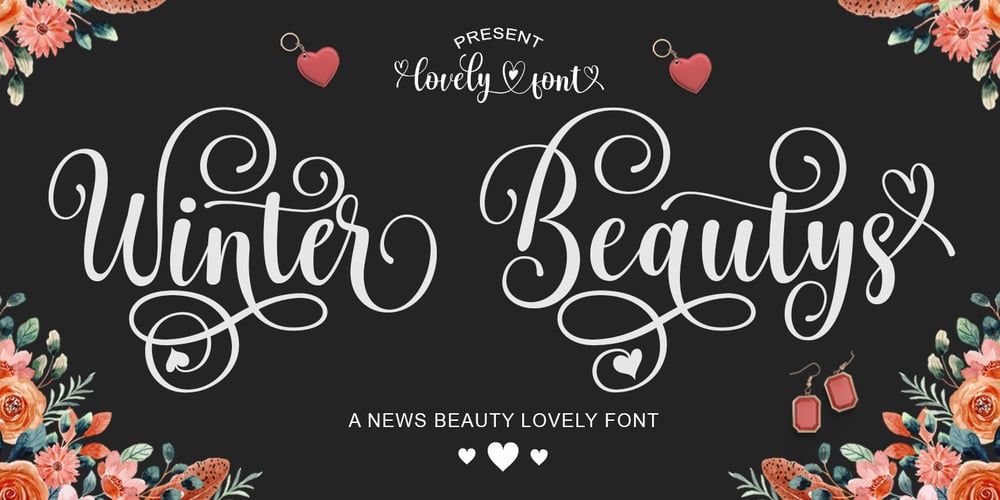
Winter Beautys Font Family was designed by Ikhsan Maulana and published by IM Studio. Winter Beautys contains 1 styles and family package options. Winter Beauty is a romantic and sweet calligraphic typeface with characters dancing along the baseline. This will add a spark of luxury to any design project you want to create! This font is PUA coded which means you can access all the amazing glyphs and ligatures with ease!This font is perfect for all your farmhouse designs, rustic decor, branding, logos, t-shirt designs, wedding invitations, svg designs, wall art, quotes, social media and more!